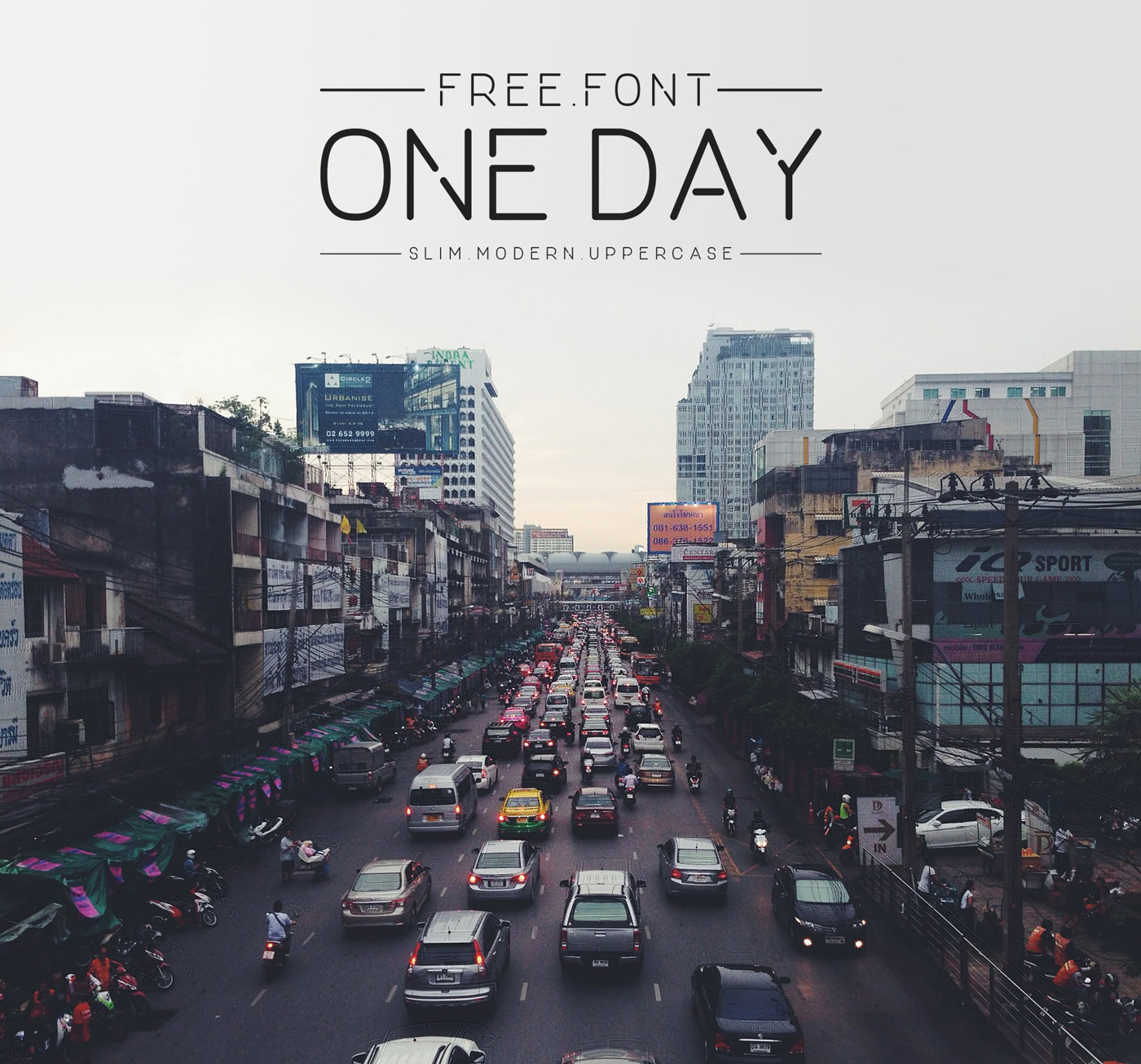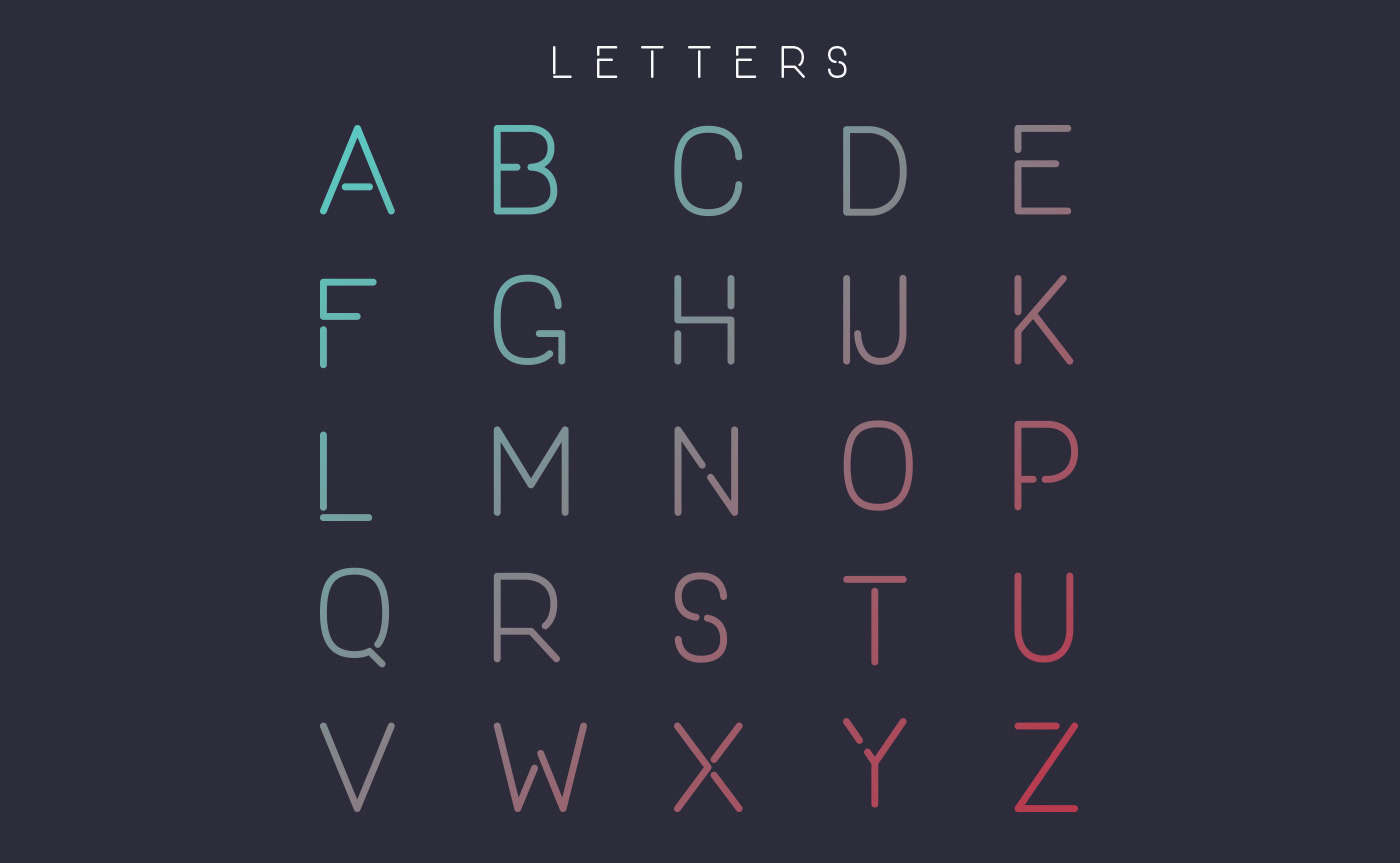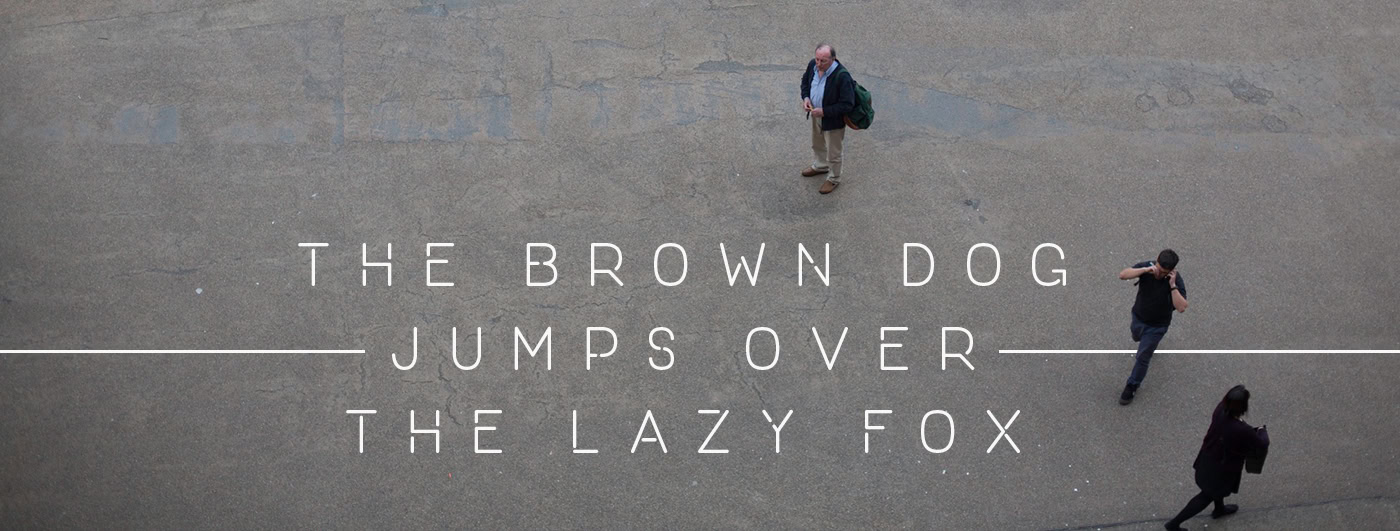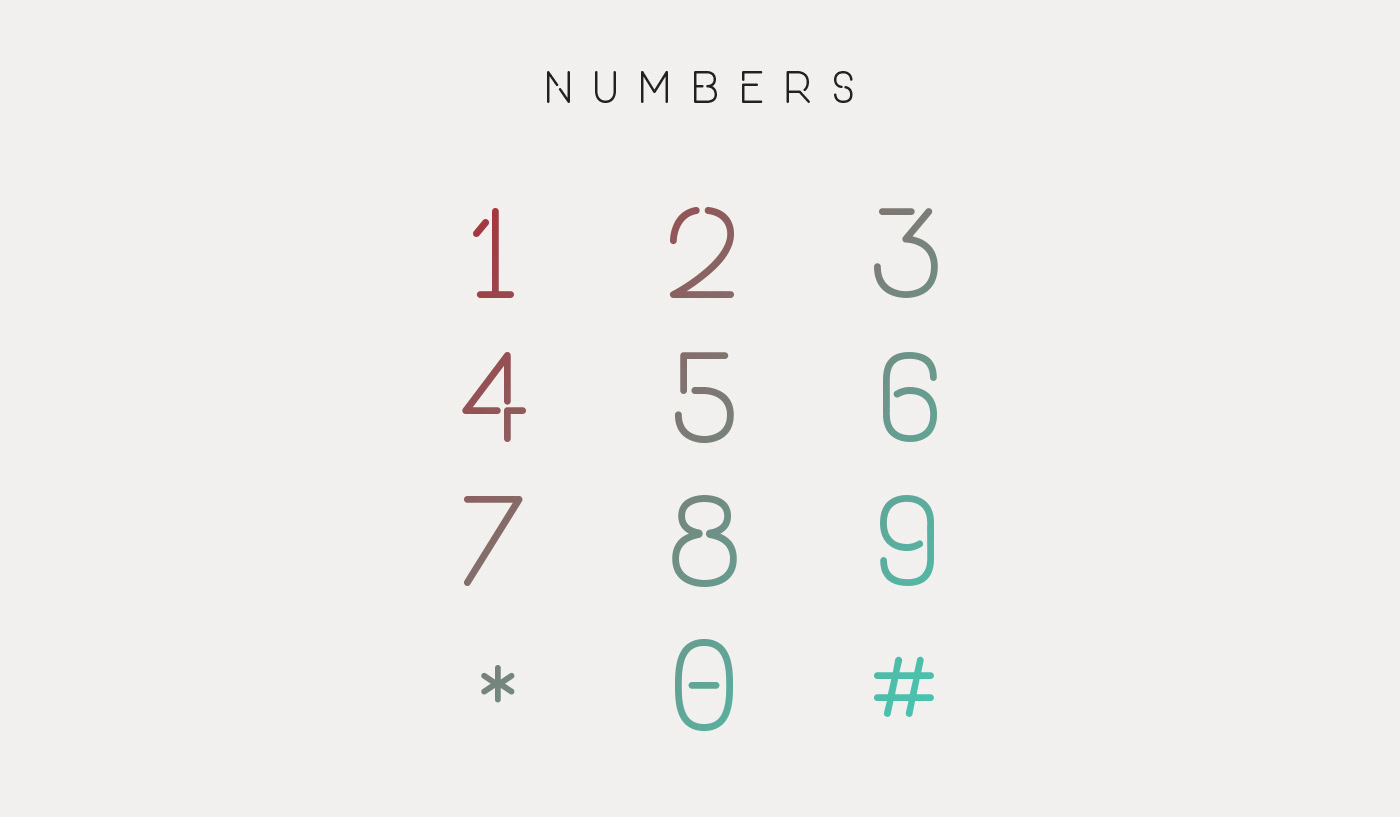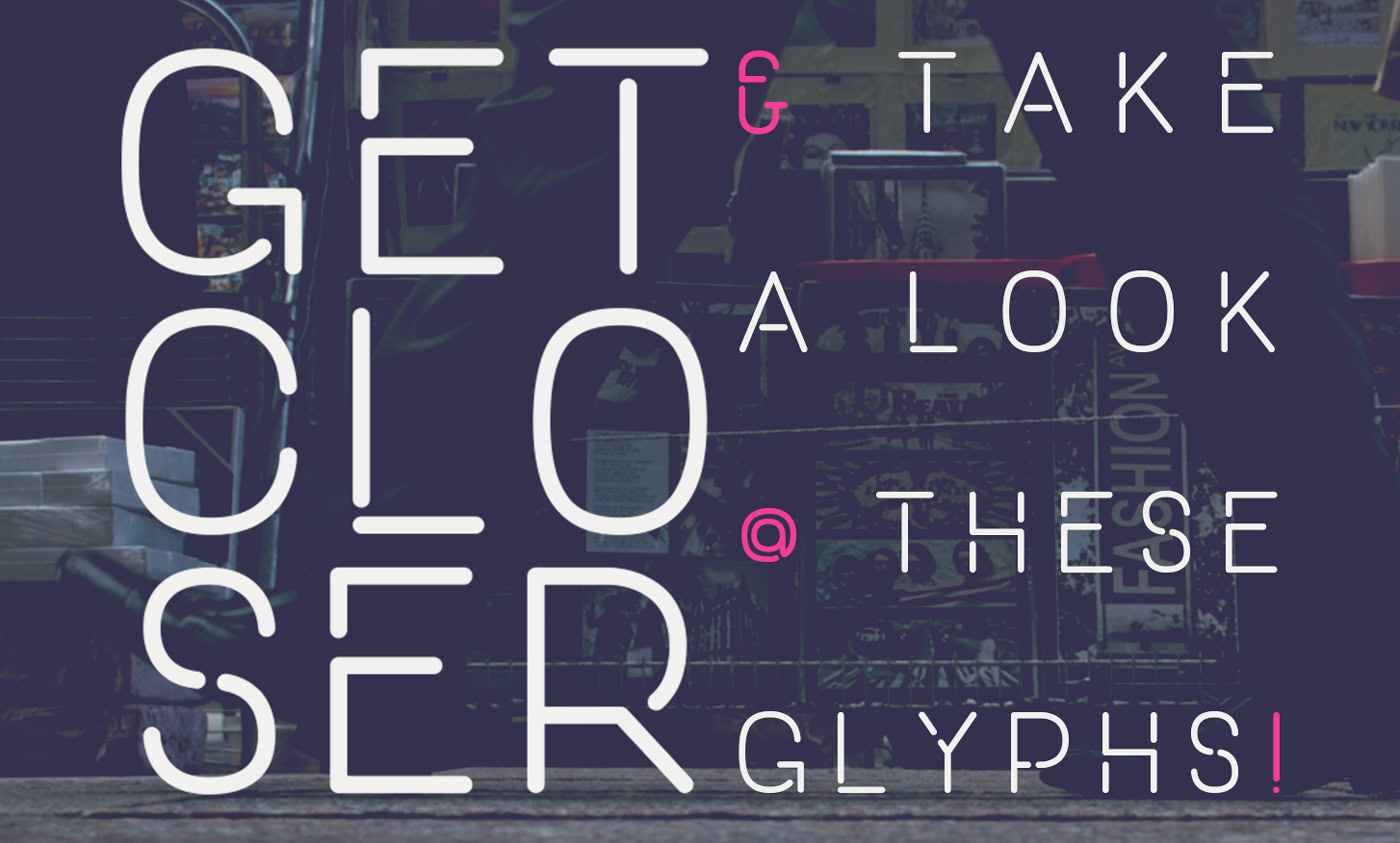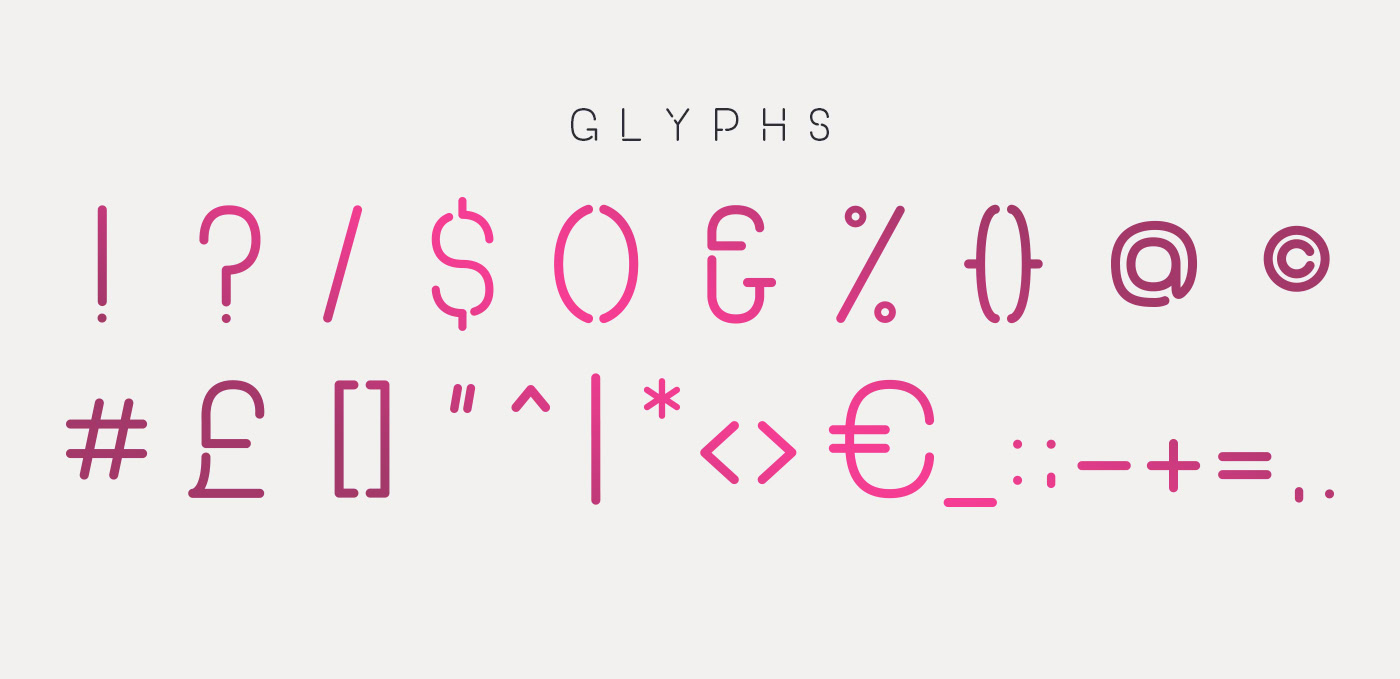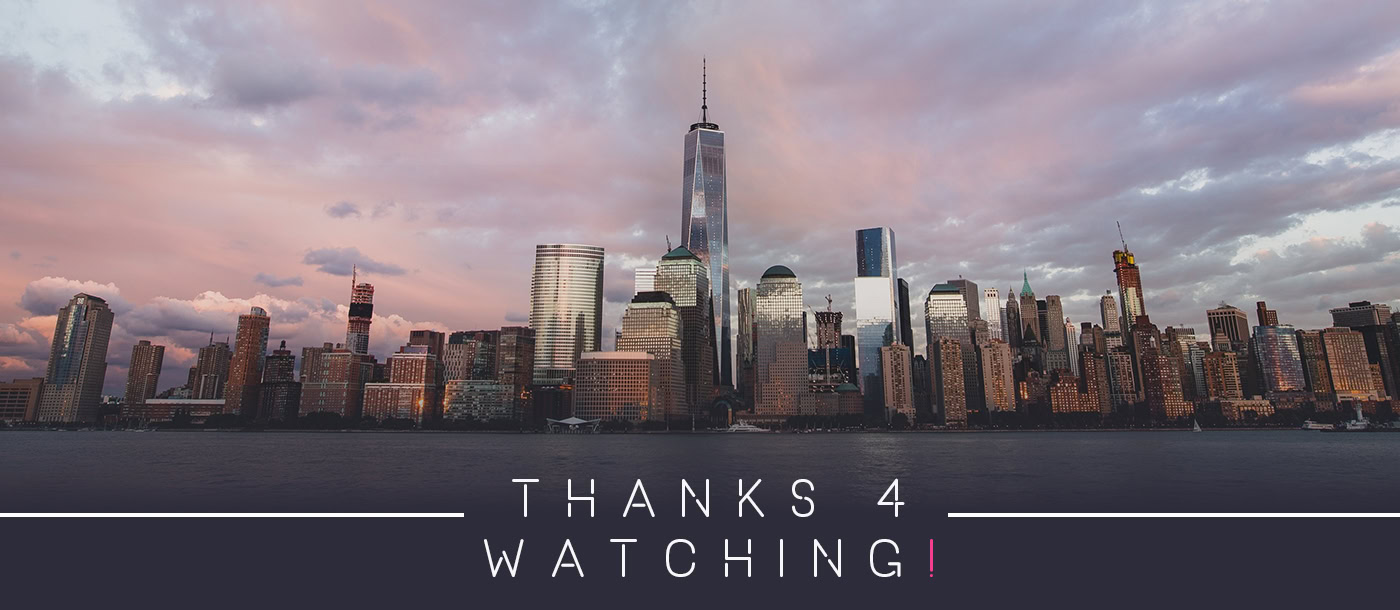
One Day is a slim modern font designed by Nawras Moneer, a graphic designer from Irbid, Jordan. One Day is a functional geometric upercase typeface, with a nice cut in letters and a sleek structure, giving it a strong personality while still keeping readability high. Free for both personal and commercial use!